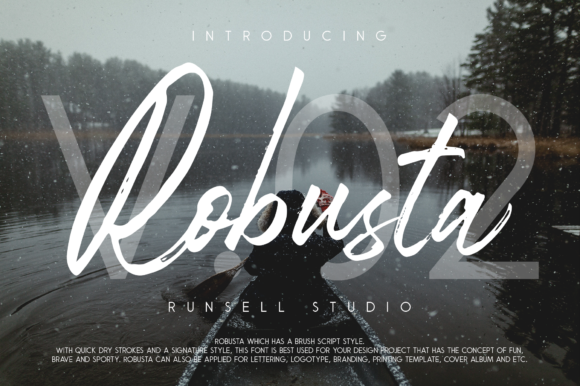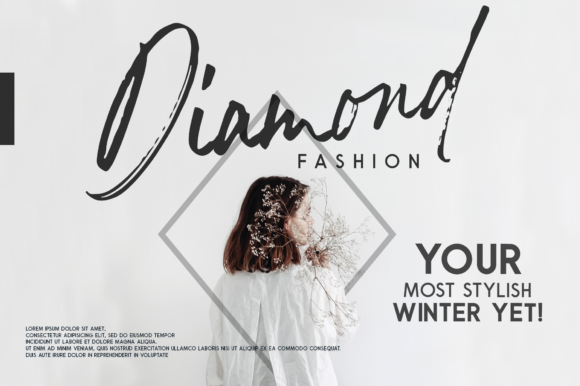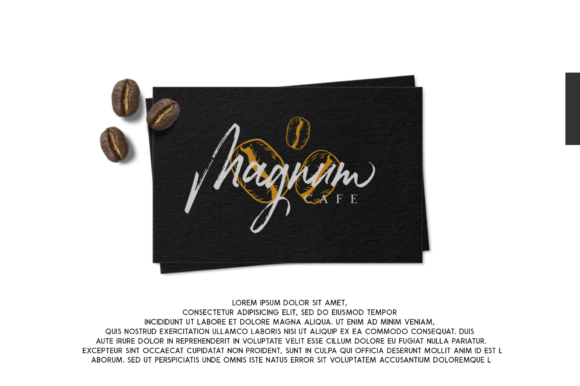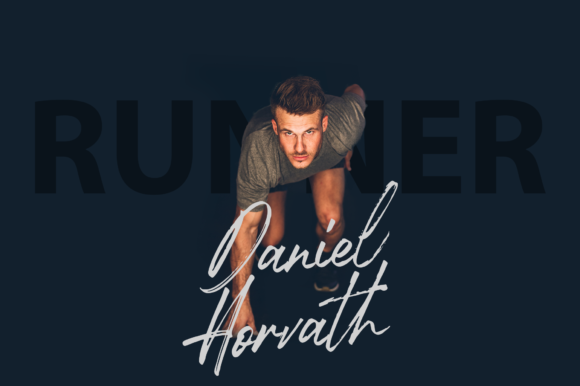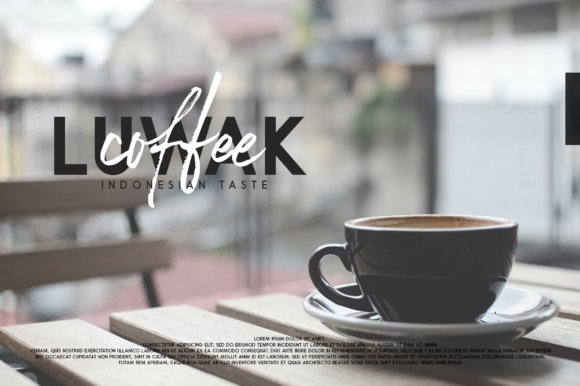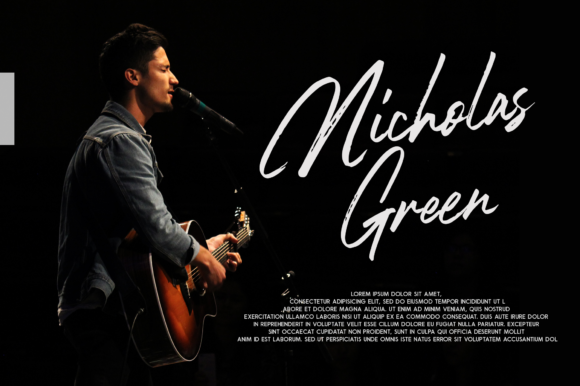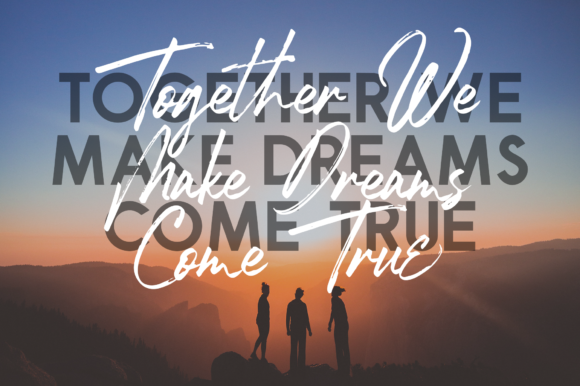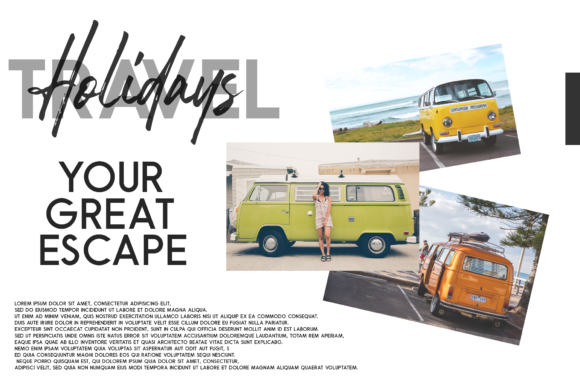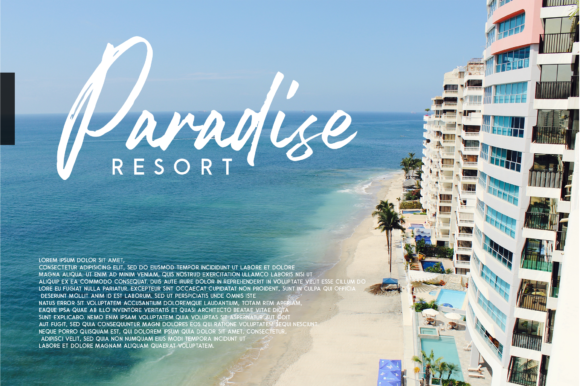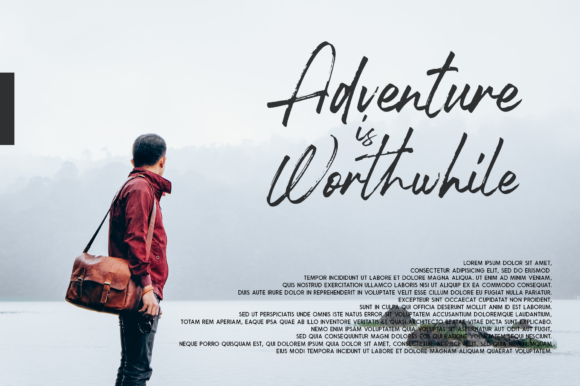
Robusta Duo Font
The Robusta is a fun brush style duo. It has quick dry strokes and a signature style.
The Robusta is perfect for signatures, logos, quotes, magazines, book covers, websites, and much more!